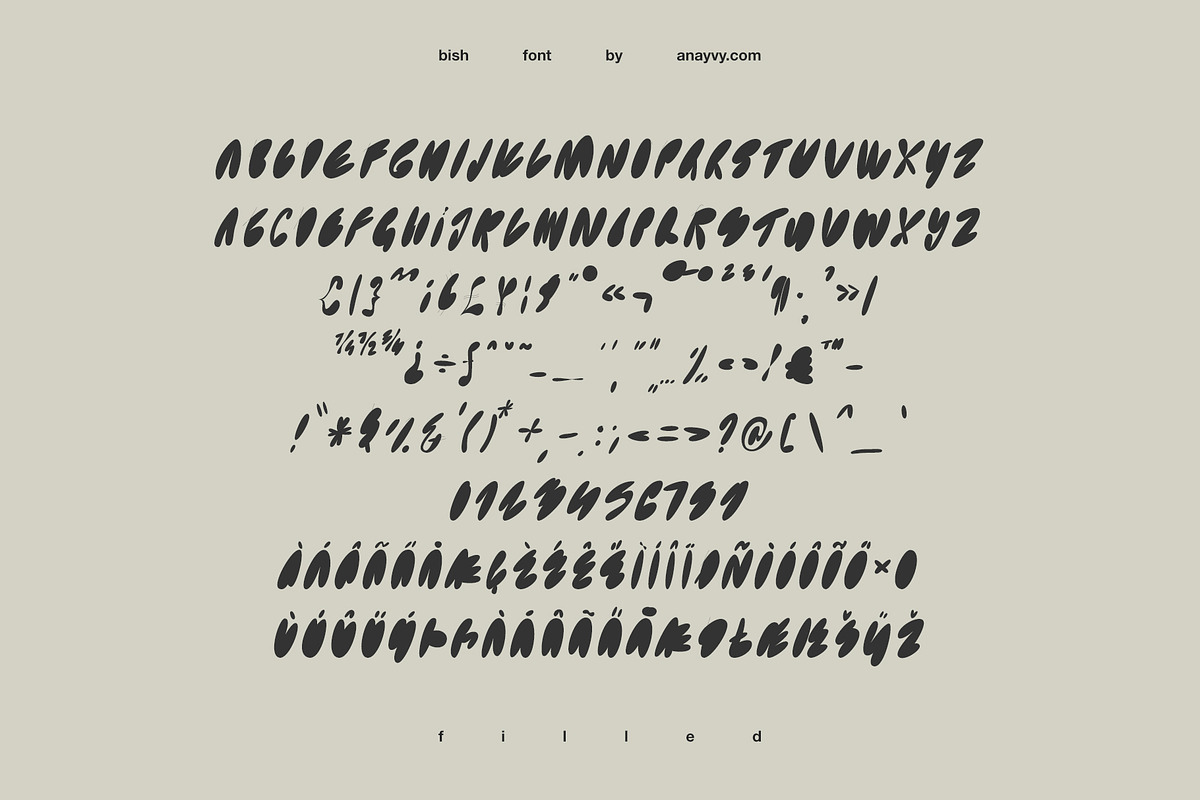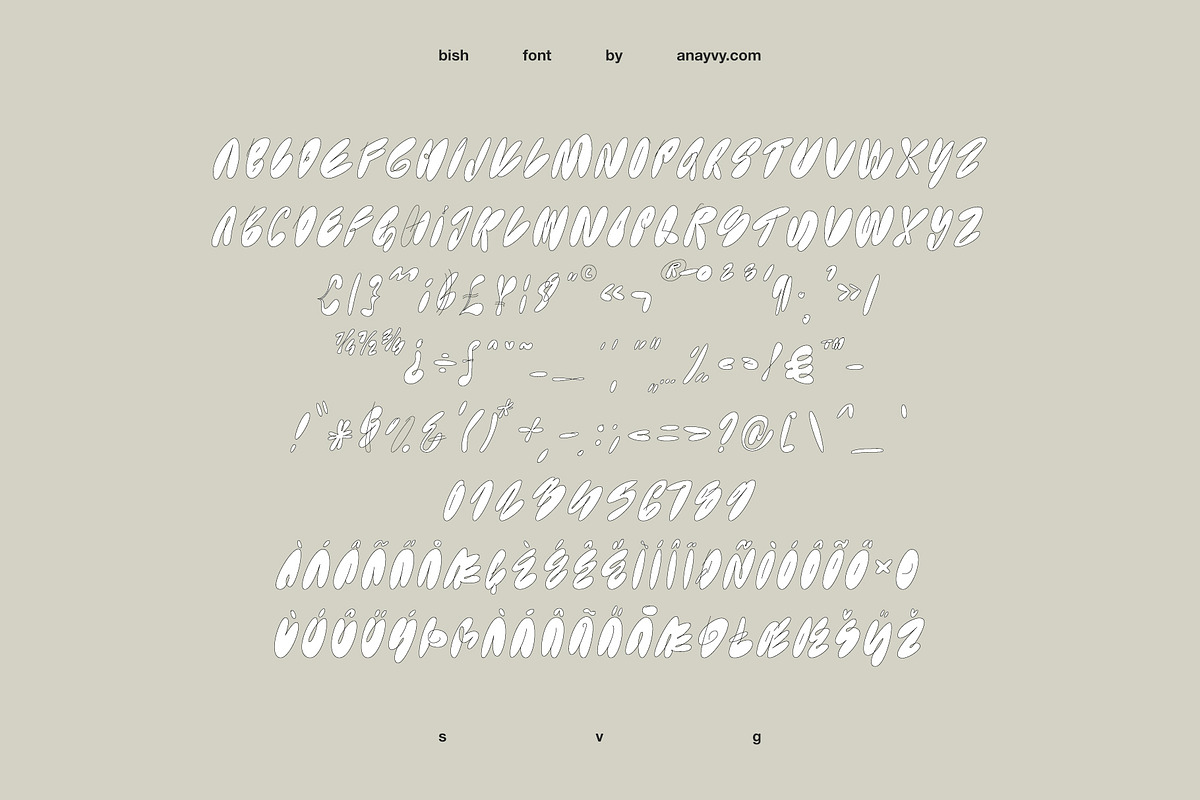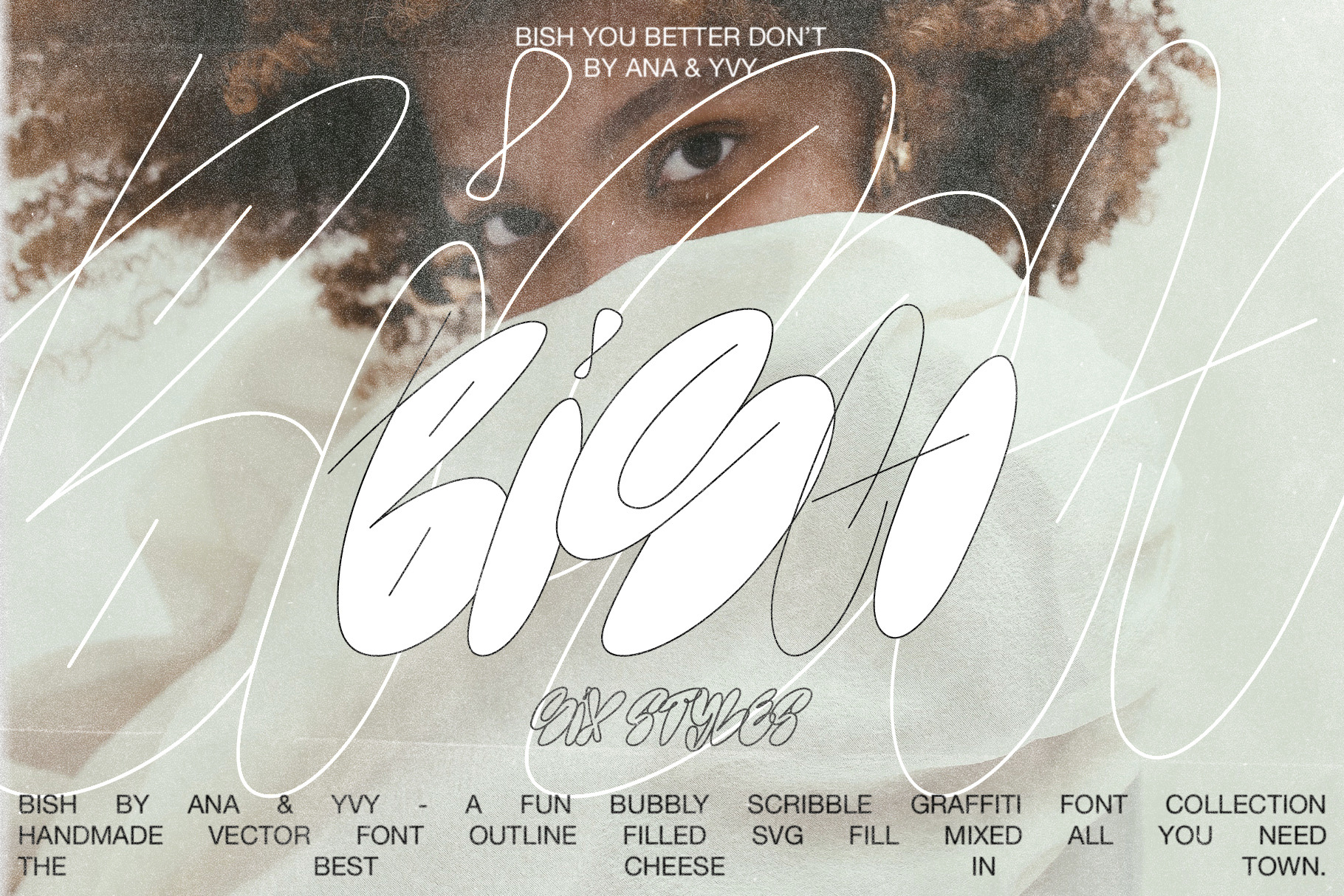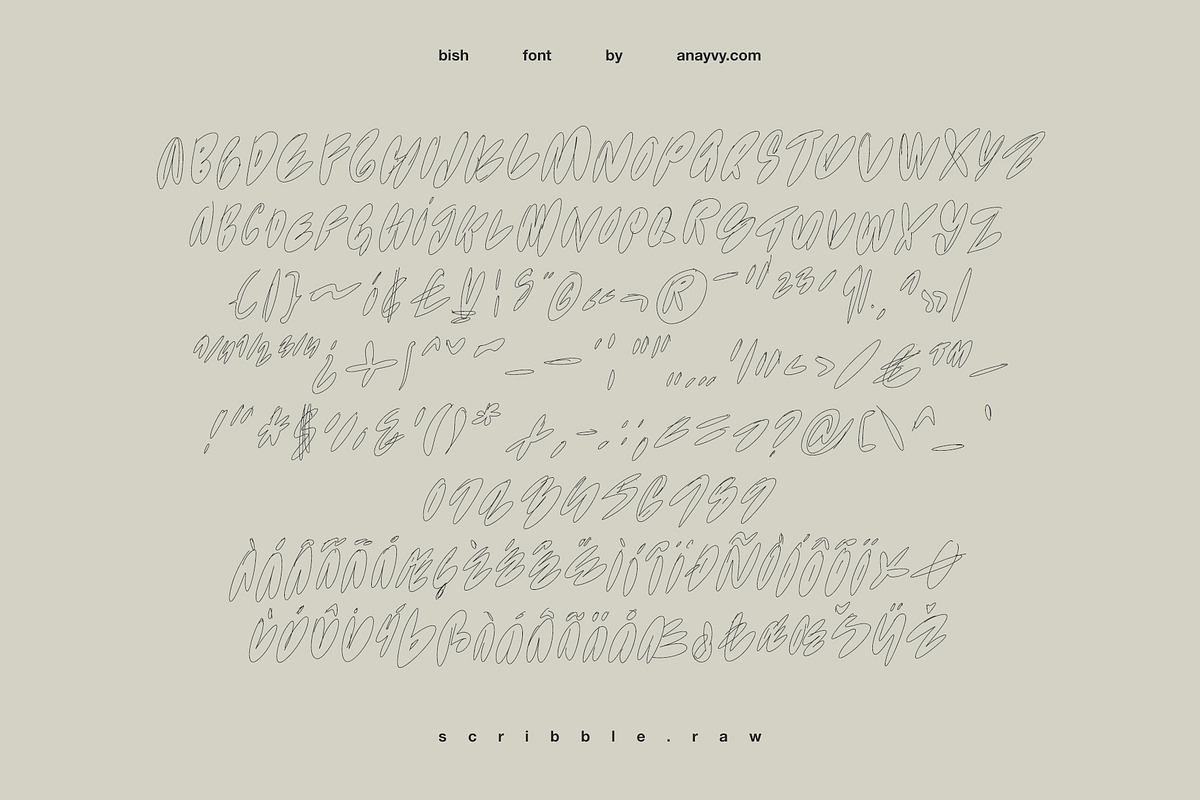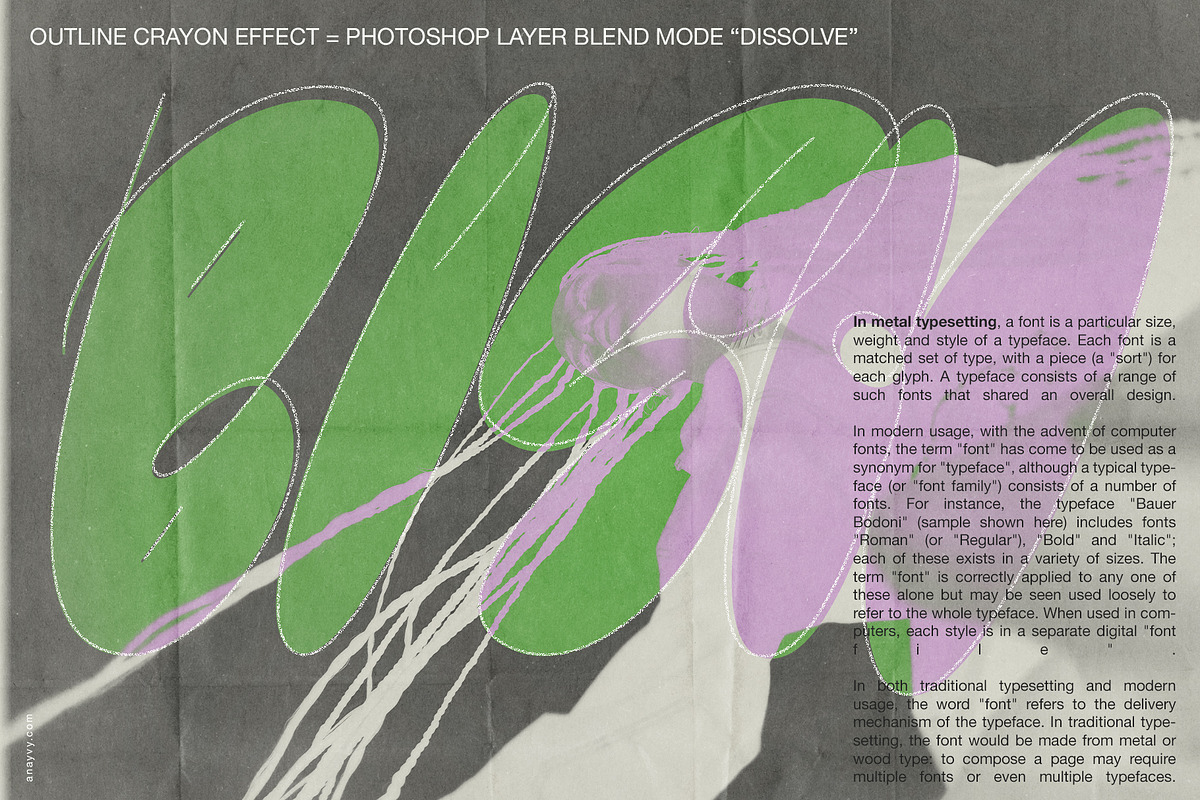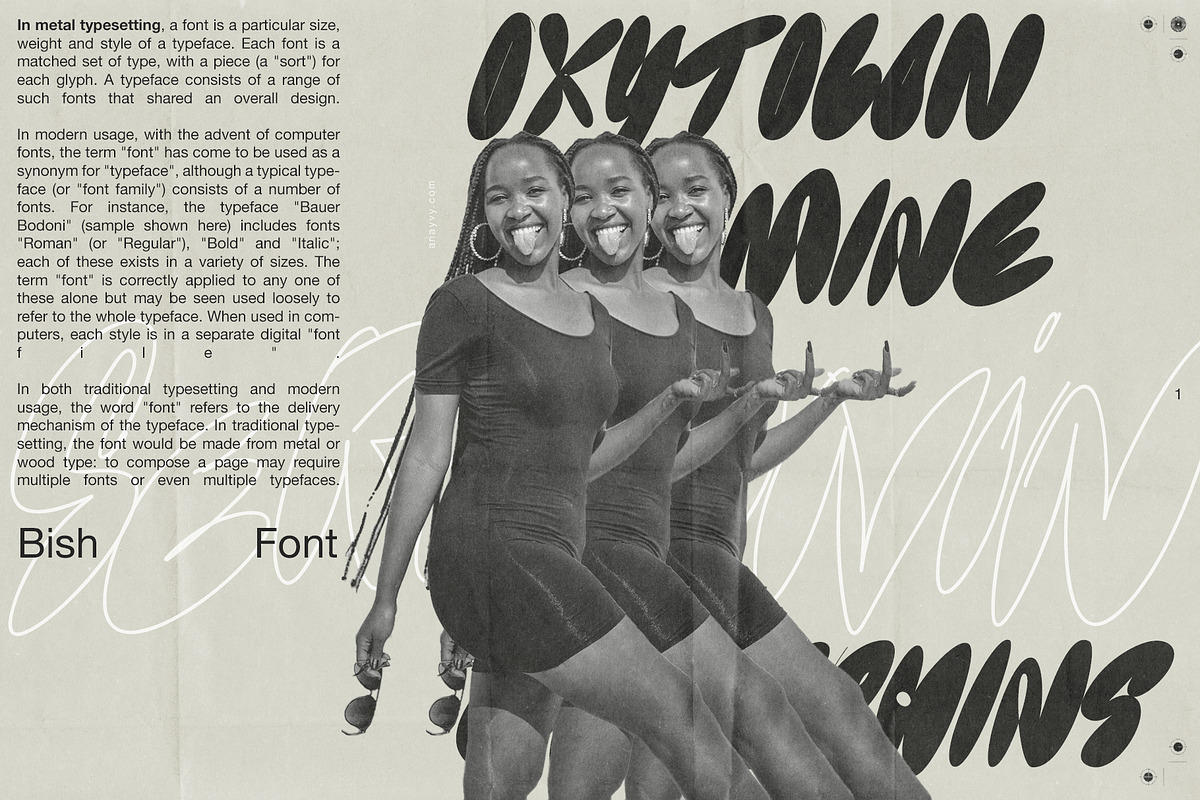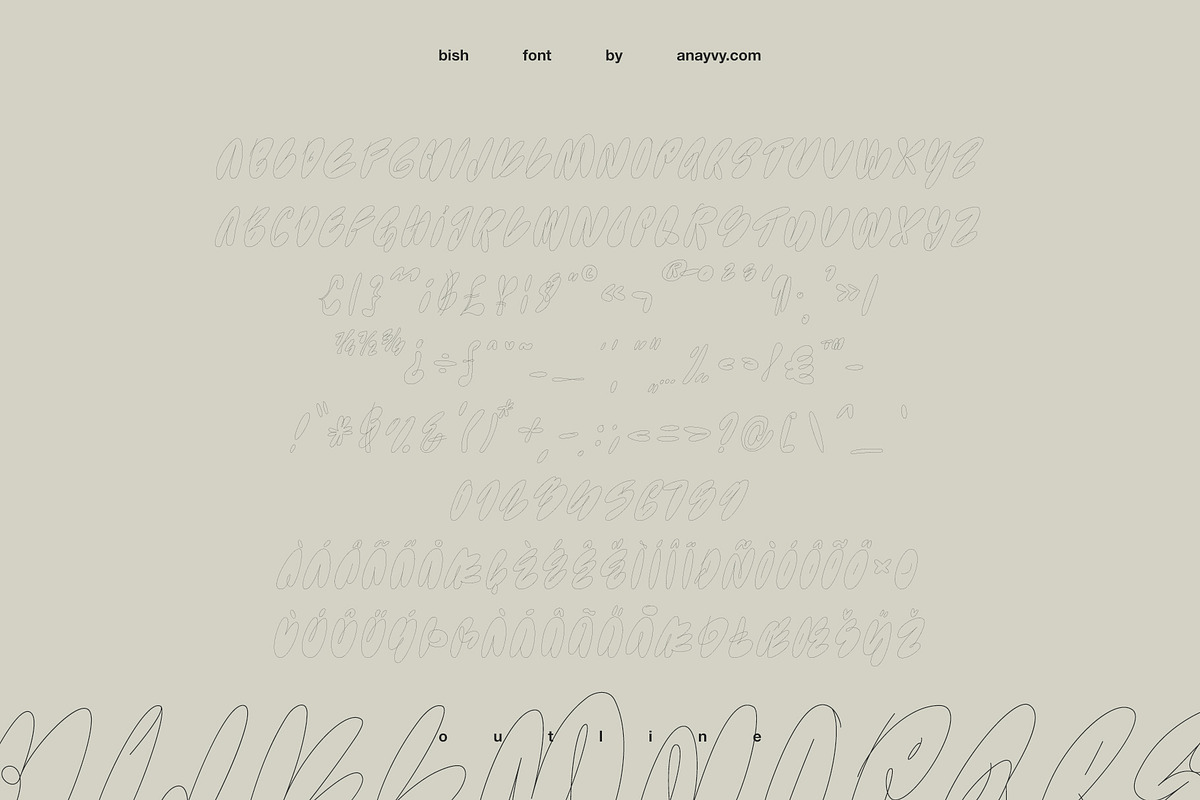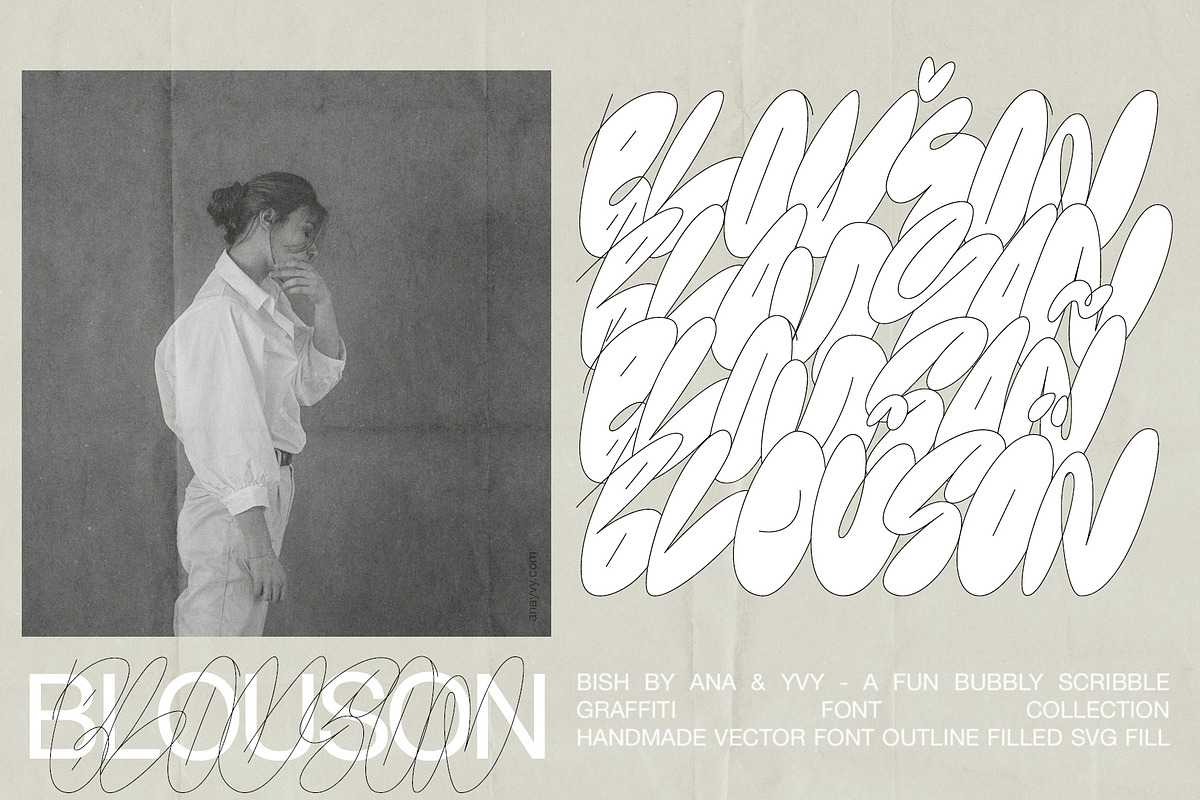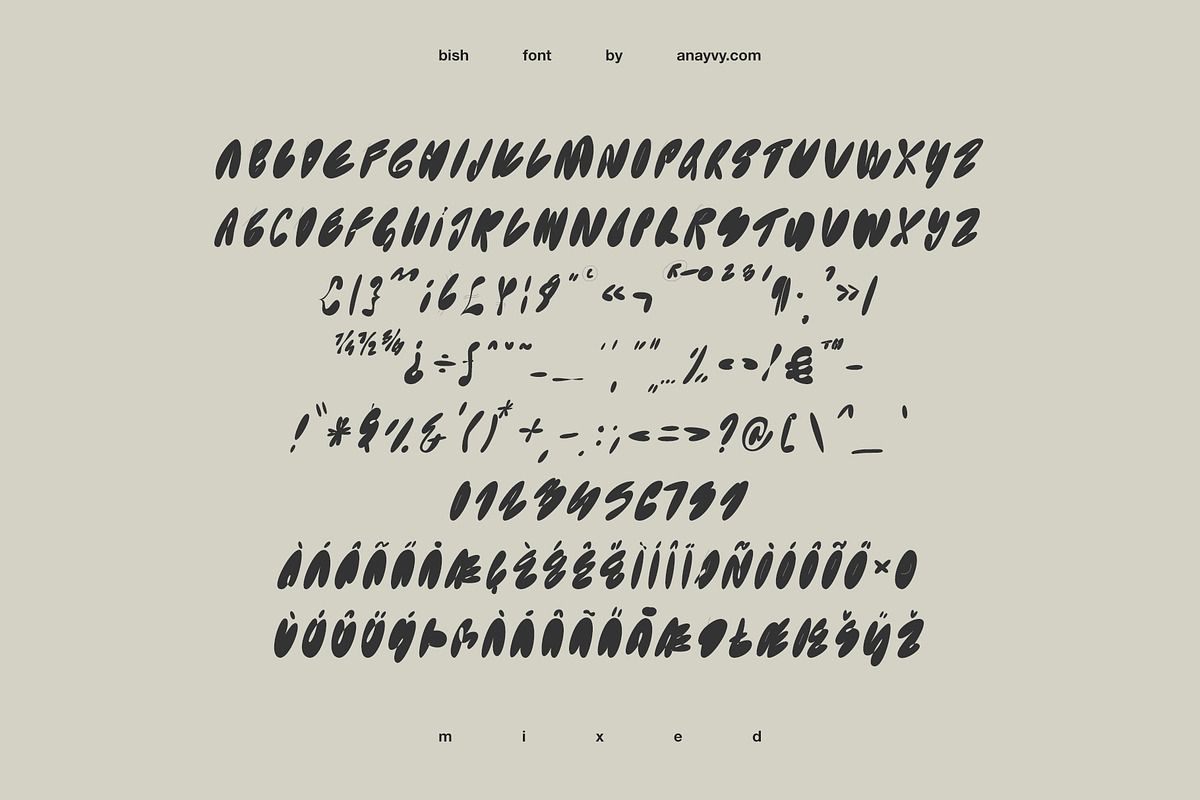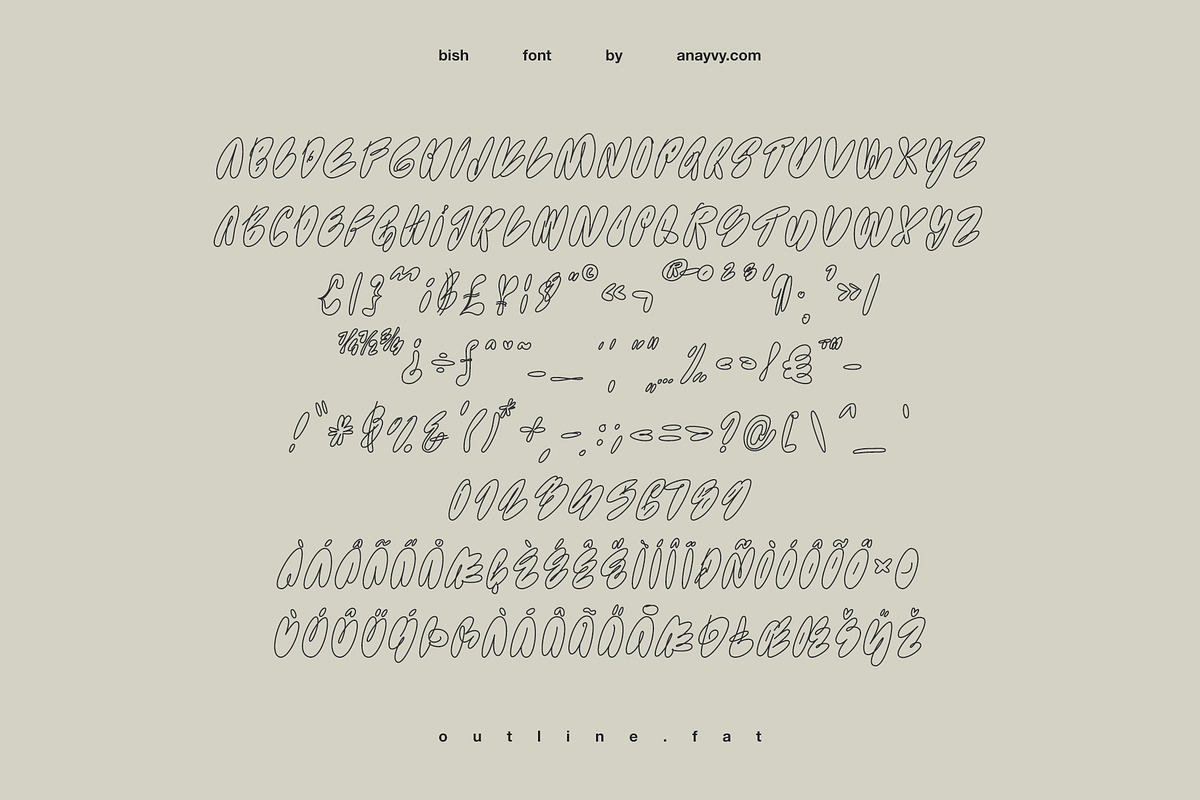
BISH | Bubble Graffiti Font Family
BISH - a graffiti inspired font family with 6 styles.
WHAT'S INSIDE
- filled solid style
- mixed filled with cutout style
- outline thin style
- outline thick style
- raw scribble style
- black outline white fill SVG style